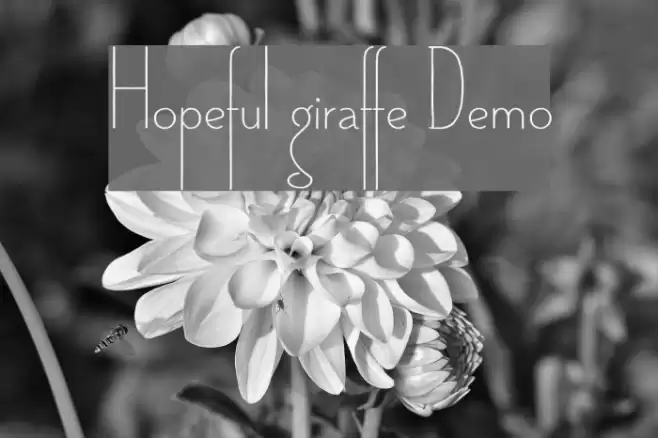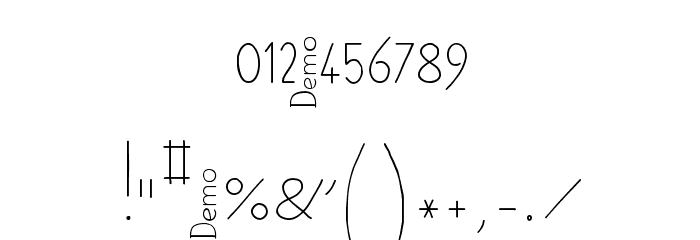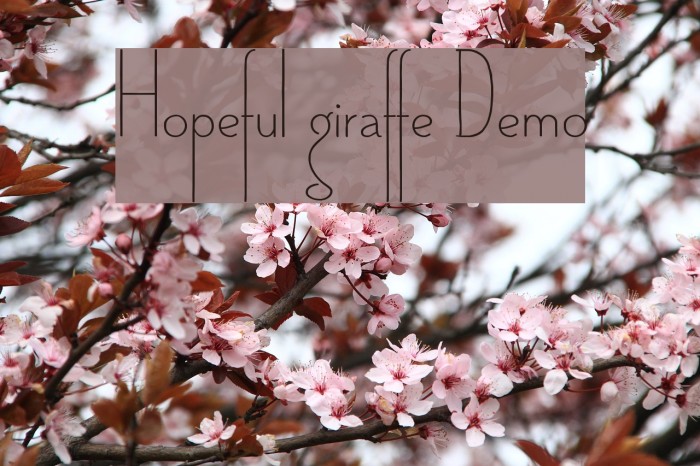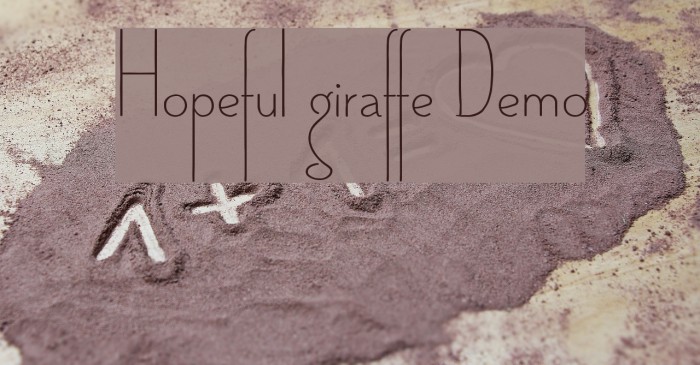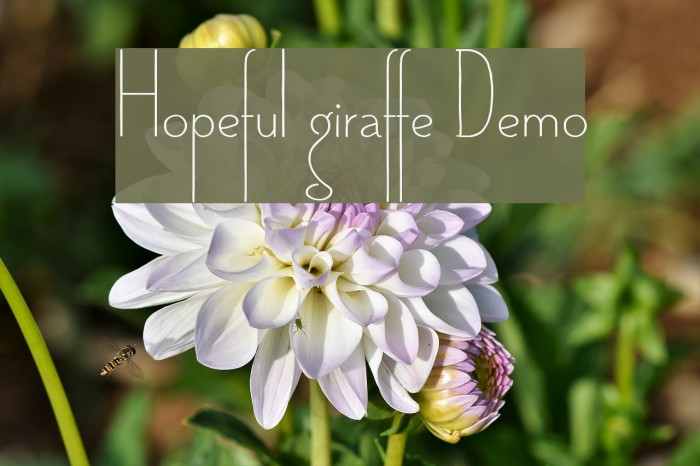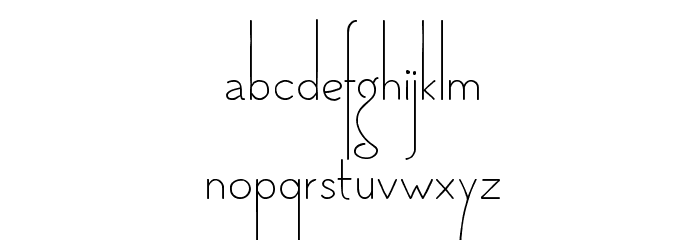
Hopeful giraffe Demo Font
Hopeful giraffe Demo Description
This font features an ultra-thin and elongated design, characterized by its tall, narrow letters and minimal stroke width. The uppercase letters exhibit a unique vertical alignment with some characters extending below the baseline, adding a whimsical touch. The lowercase letters maintain the same thinness, with a playful yet elegant appearance. Numbers and special characters follow the same slender style, ensuring consistency throughout. This font's overall aesthetic is modern and artistic, making it suitable for creative and expressive projects.
An ultra-thin, elongated font with a whimsical, modern style from Uncategorized fonts.
- Proposed Projects: Ideal for artistic posters, fashion branding, modern invitations, and creative logos.